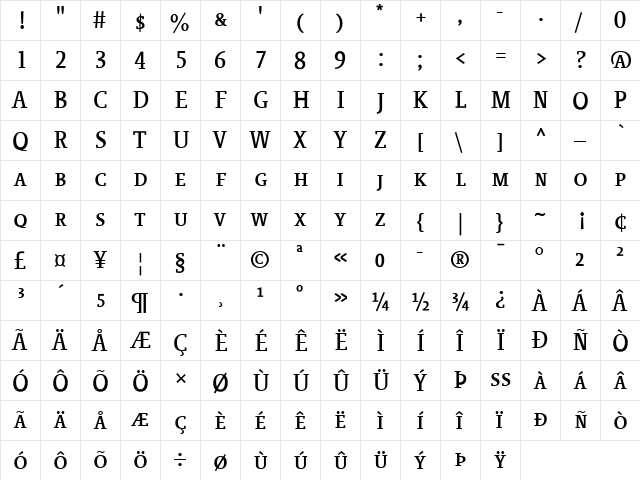
SheriffCaps Roman Font Preview
SheriffCaps Roman
SheriffCaps Roman Font Details
Design Context for SheriffCaps Typeface
SheriffCaps offers clean, dependable letterforms without strong stylistic allegiance, making it a practical choice for designers who need flexibility.
Pro Tip: Use SheriffCaps in both headline and body roles to test its range before committing to a single application.